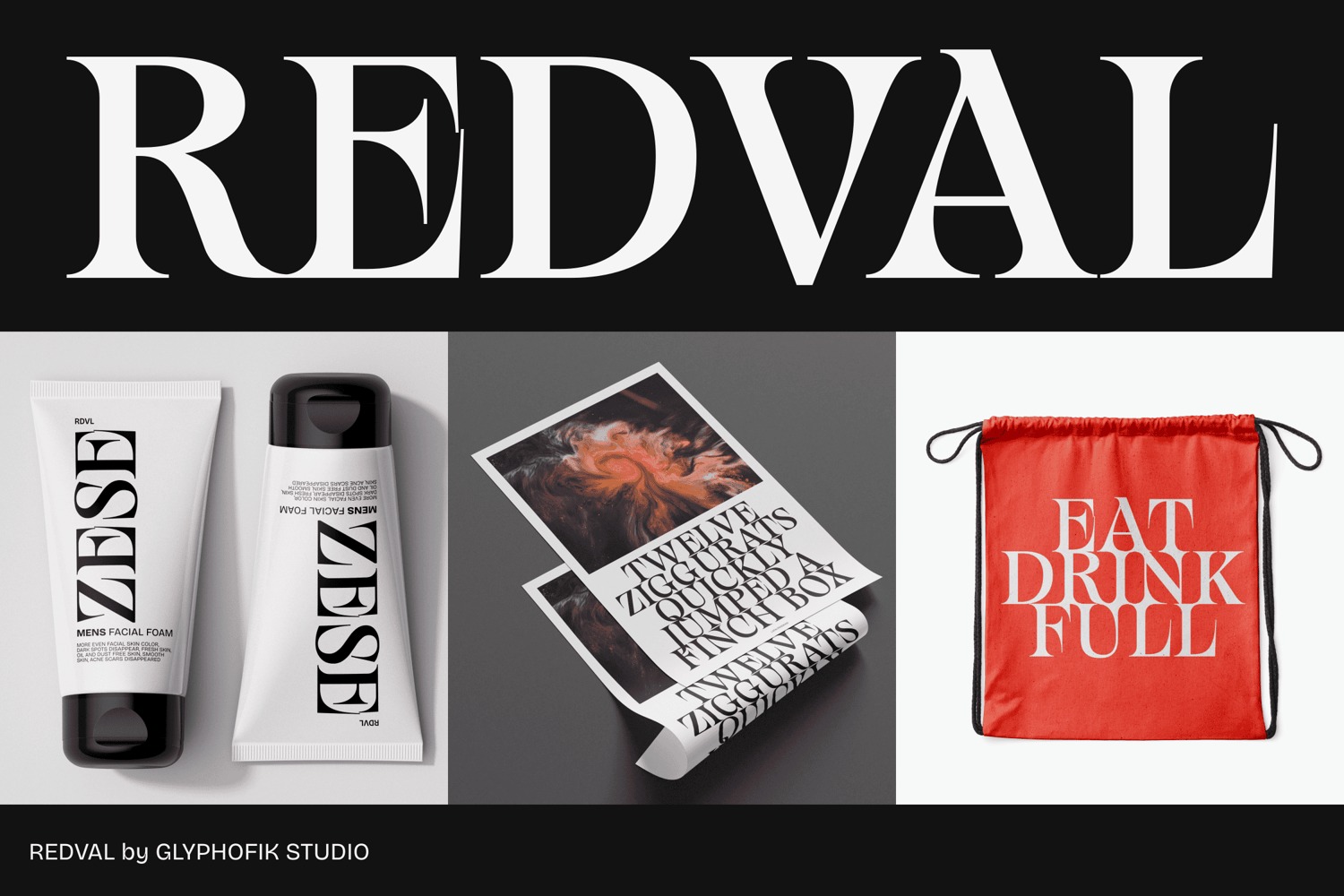
Redval Font
Redval Font — a sharp, elegant serif font designed by Glyphofik Studio. While the “Trial” version is free for personal use, commercial use requires a paid license, priced based on the size of your company. Once licensed, you may use Redval for desktop, print, web, logos, branding, clothing, and other commercial projects.